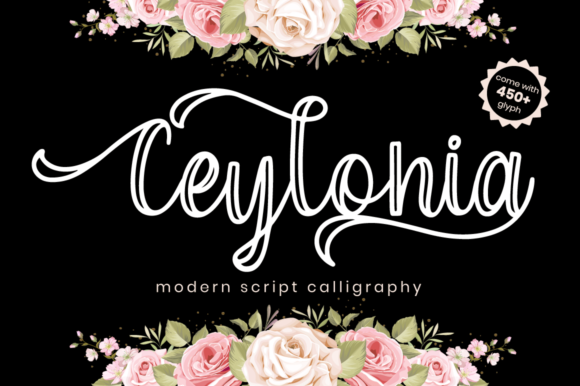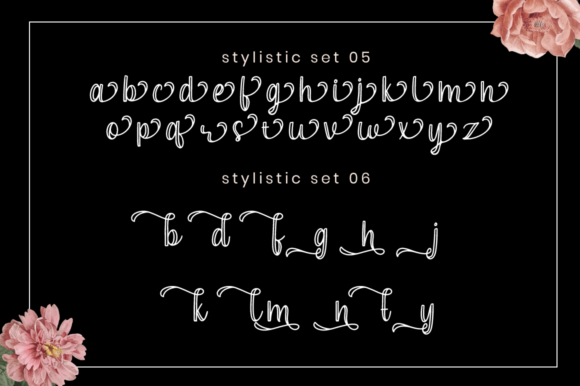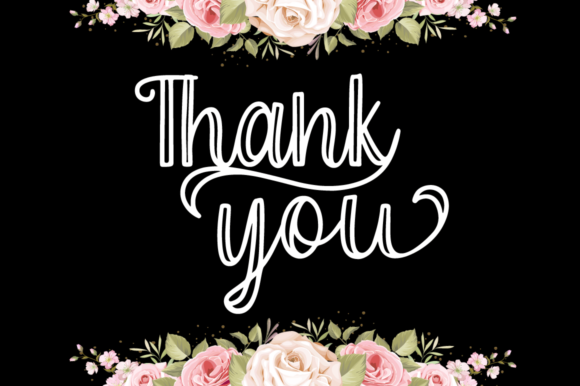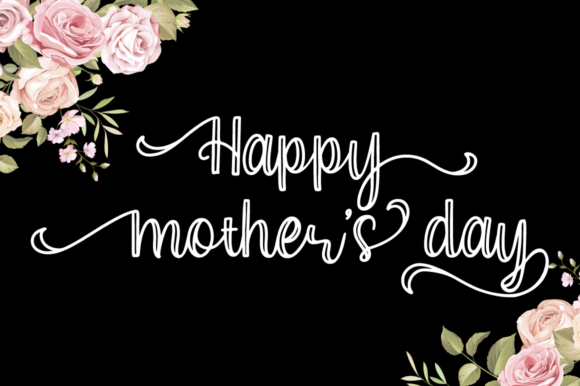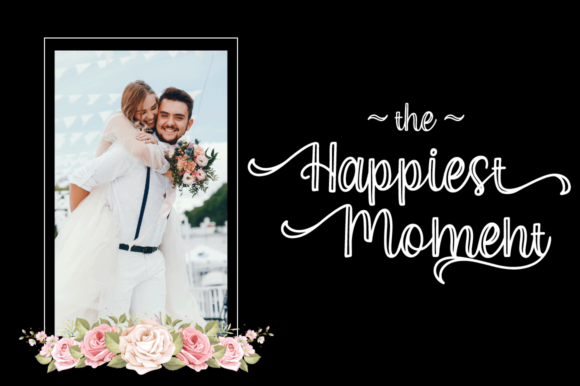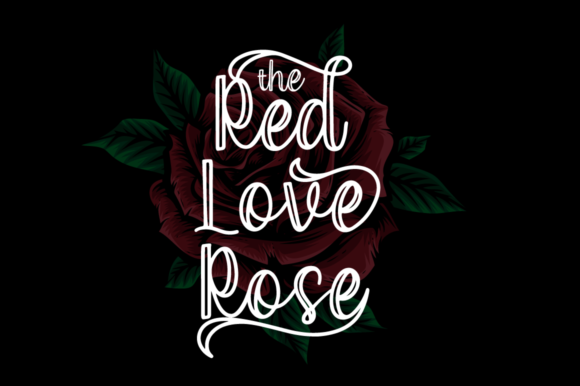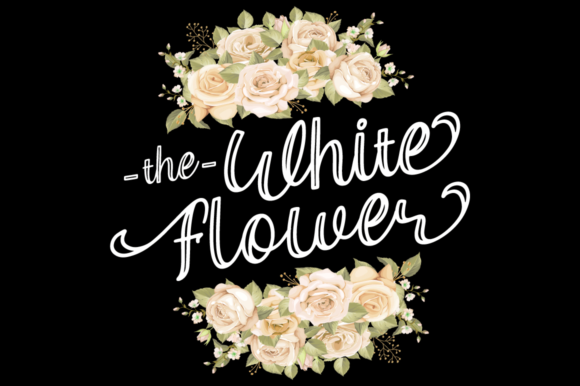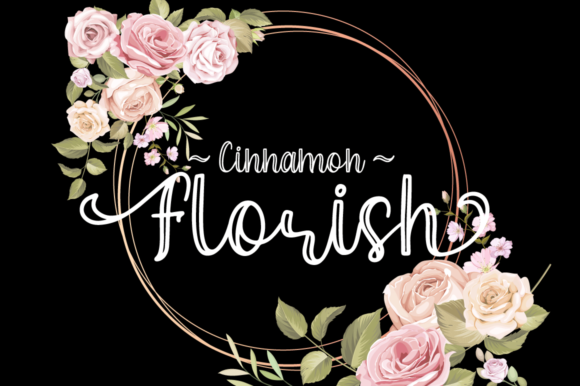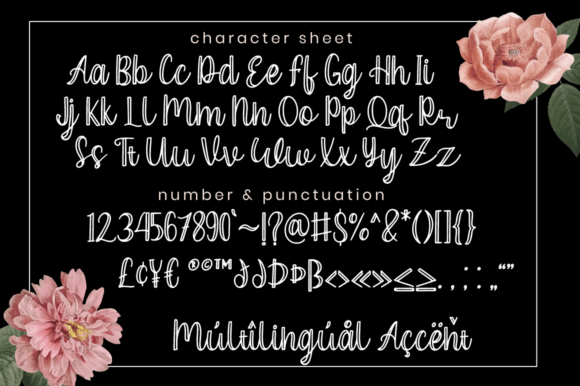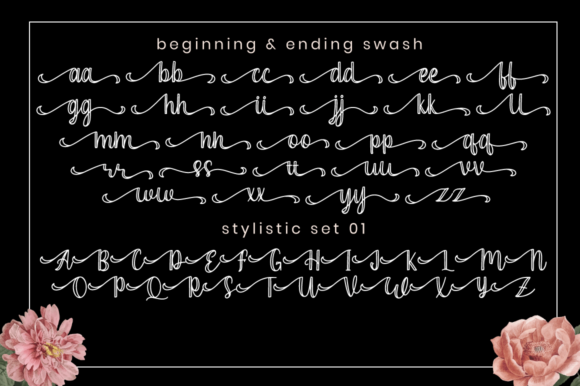
Ceylonia Font
About Ceylonia Font
Ceylonia is a beautiful handwritten font. It’s inspired by outline lettering and includes 6 stylistic set that you can combine to create outstanding designs.
Fall in love with its authentic feel and use it to create gorgeous wedding invitations, beautiful stationary art, eye-catching social media posts, and cute greeting cards.